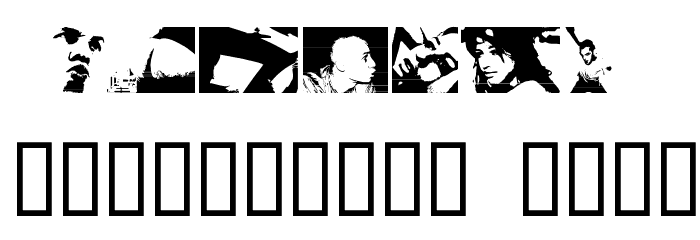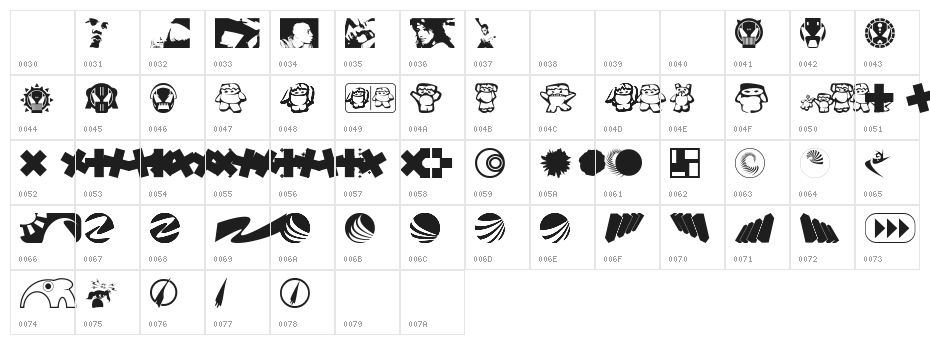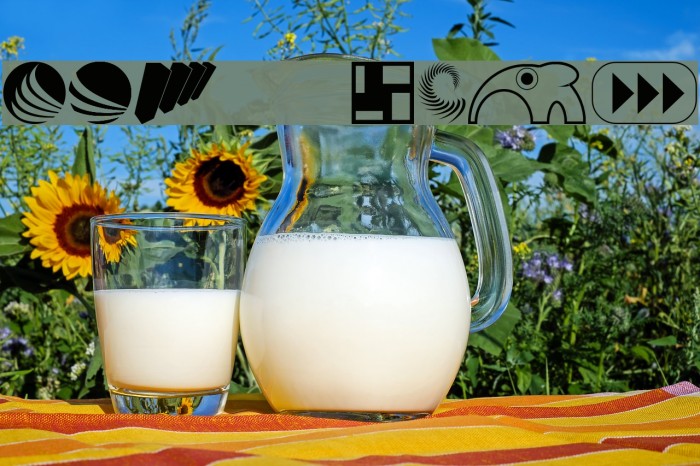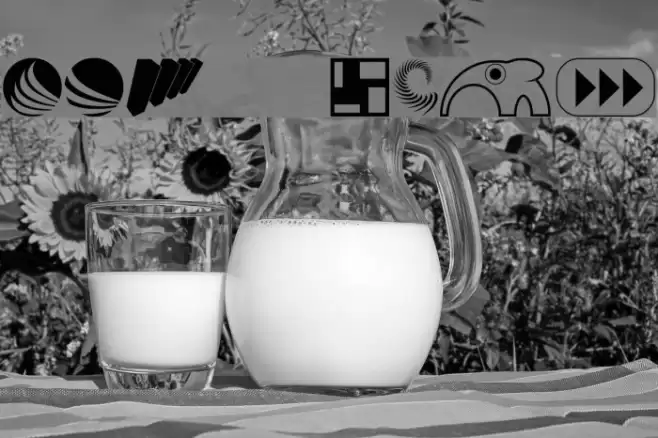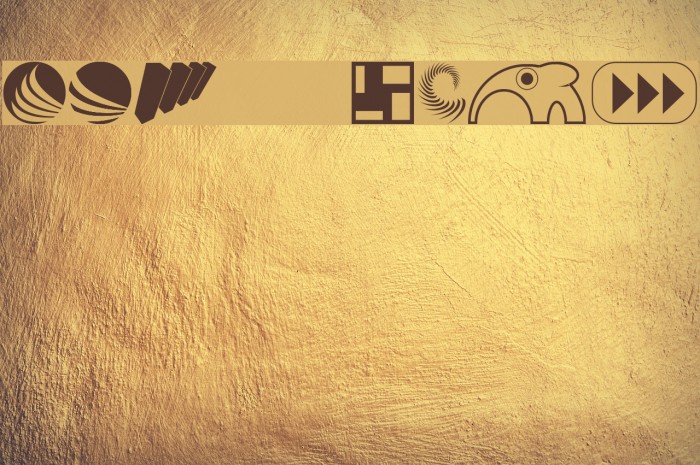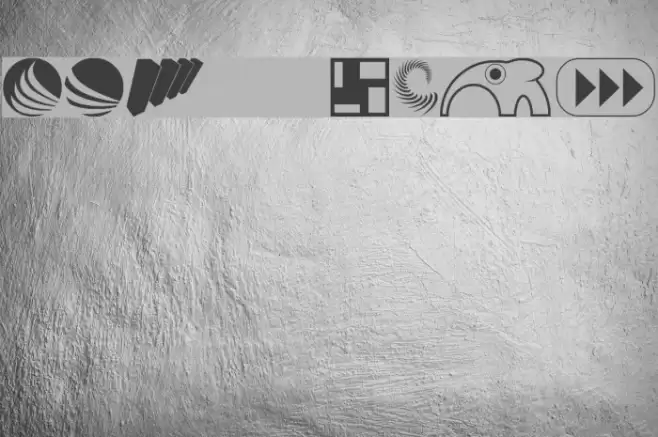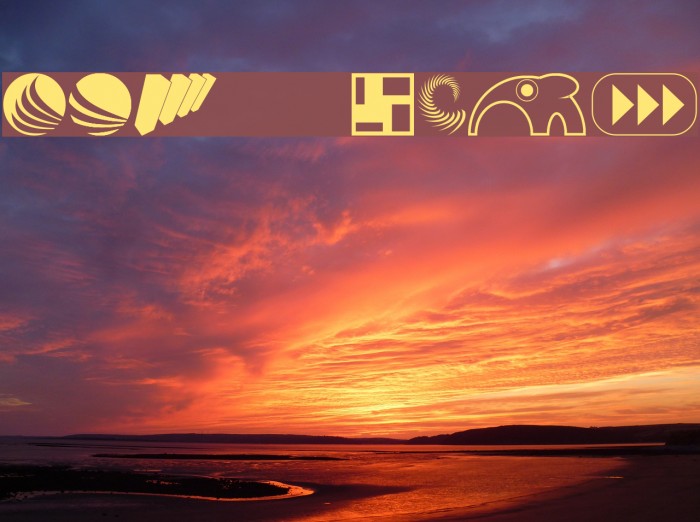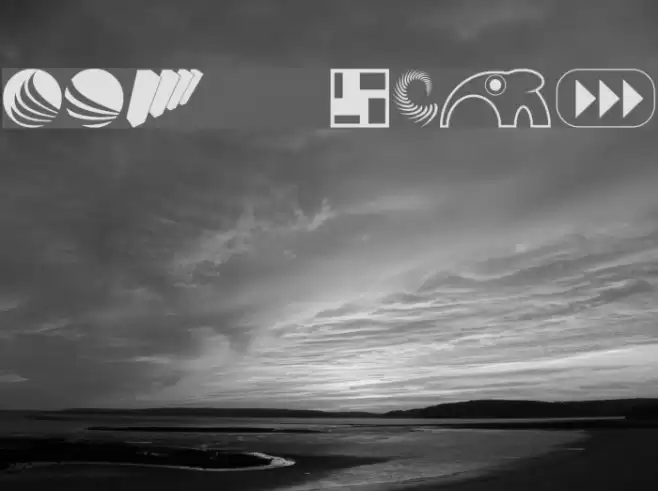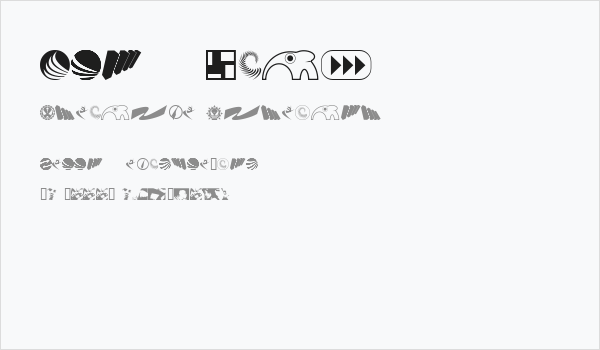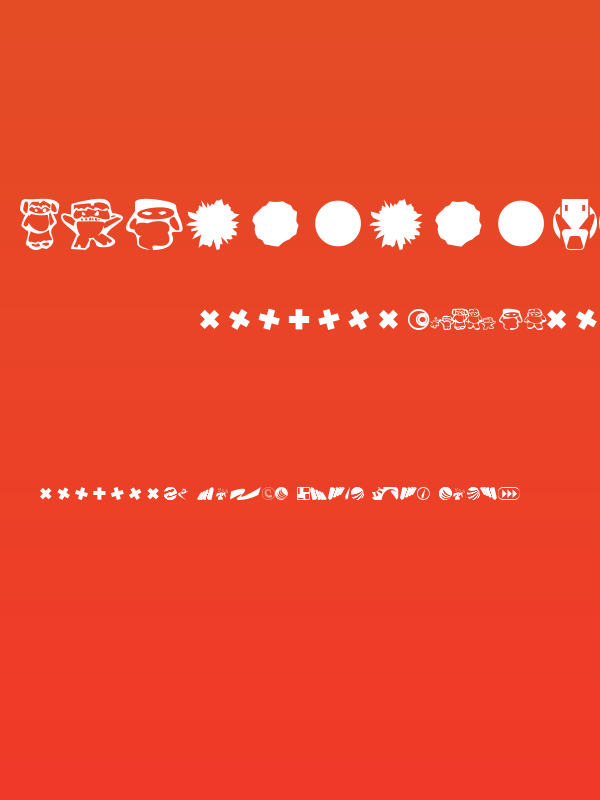
klozzbats Font
klozzbats Description
This is a decorative and playful dingbat font featuring a variety of whimsical and abstract symbols. The characters include cartoon-like figures, geometric shapes, and stylized icons that evoke a sense of fun and creativity. The font is highly illustrative, with each character offering a unique design that can be used to add visual interest to projects. The style is bold and graphic, making it suitable for eye-catching designs.
| Use Case | Logos, Headlines, Graphic design elements |
| Proposed Projects | Ideal for creative projects such as posters, flyers, and graphic design elements where a unique and playful touch is desired. |